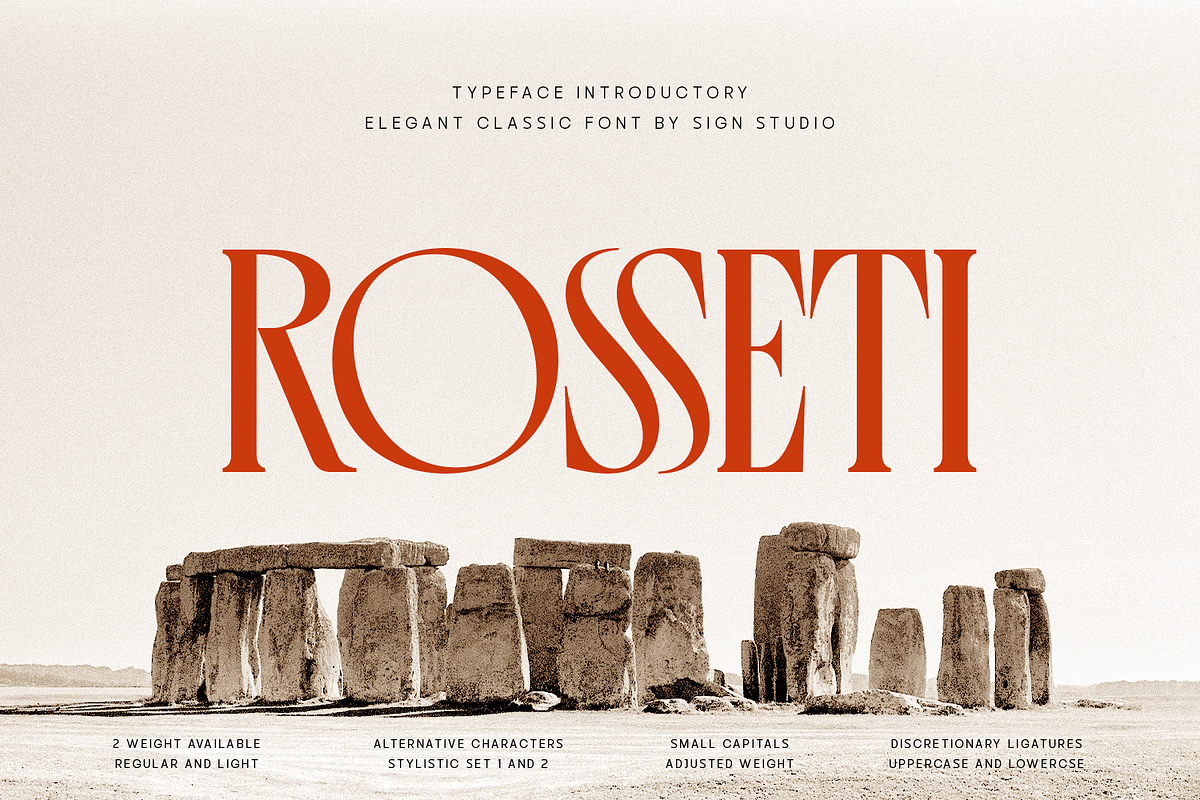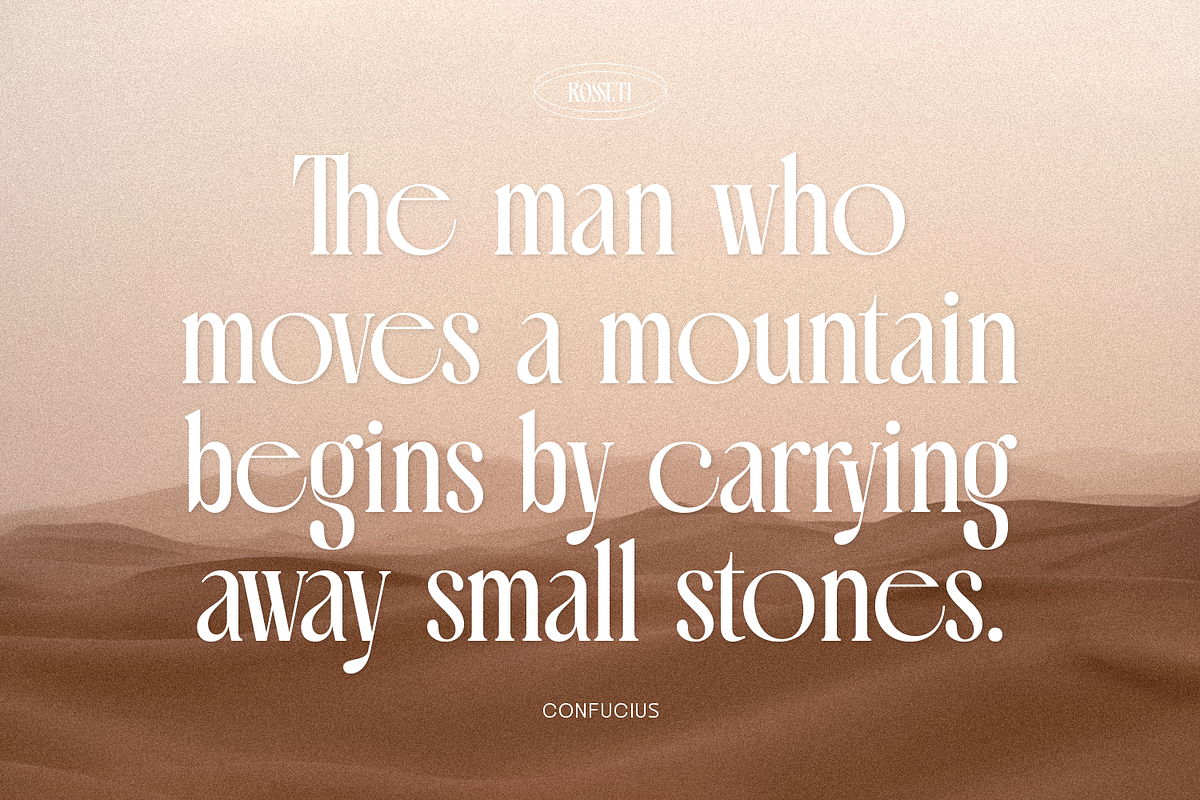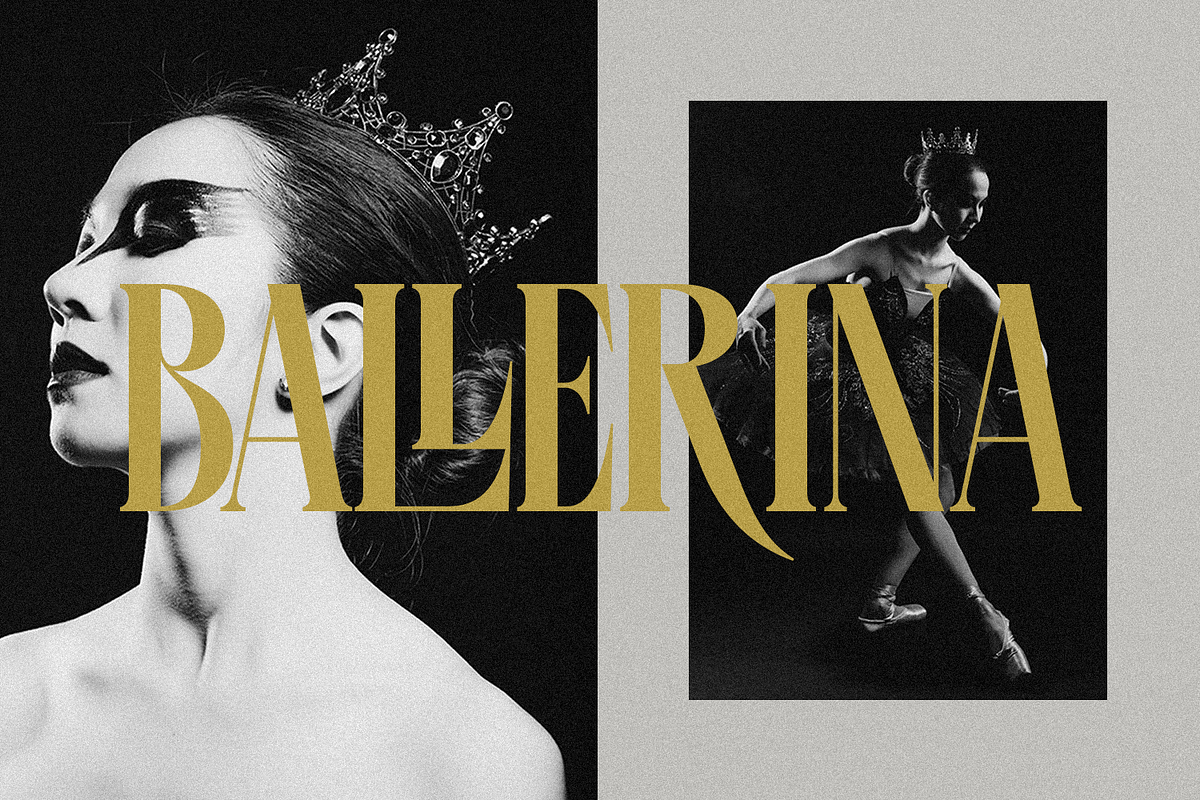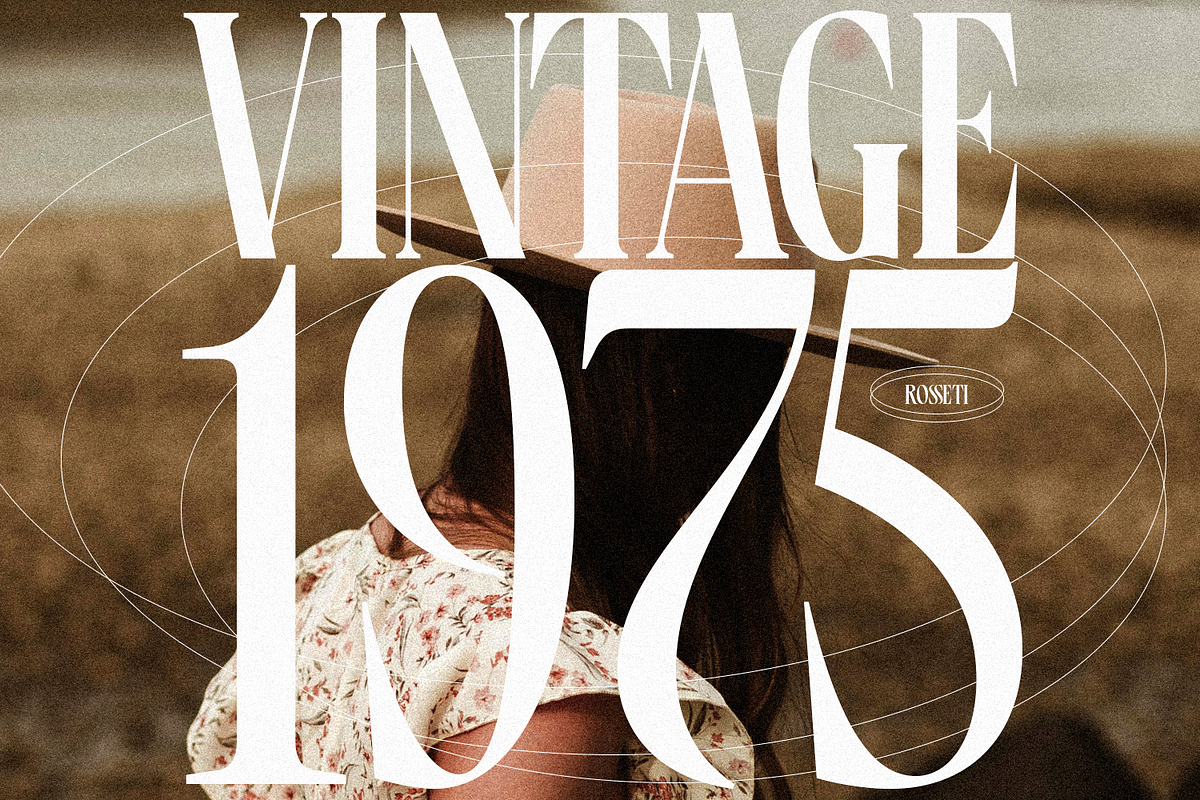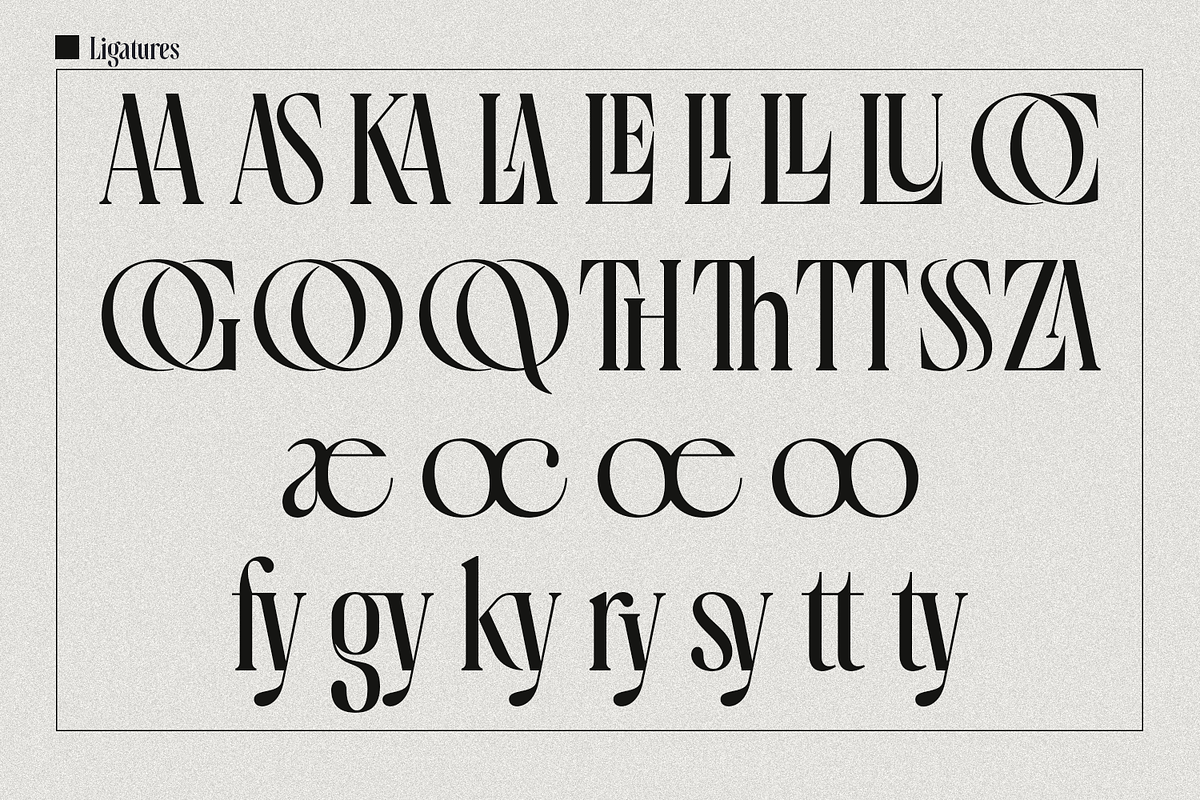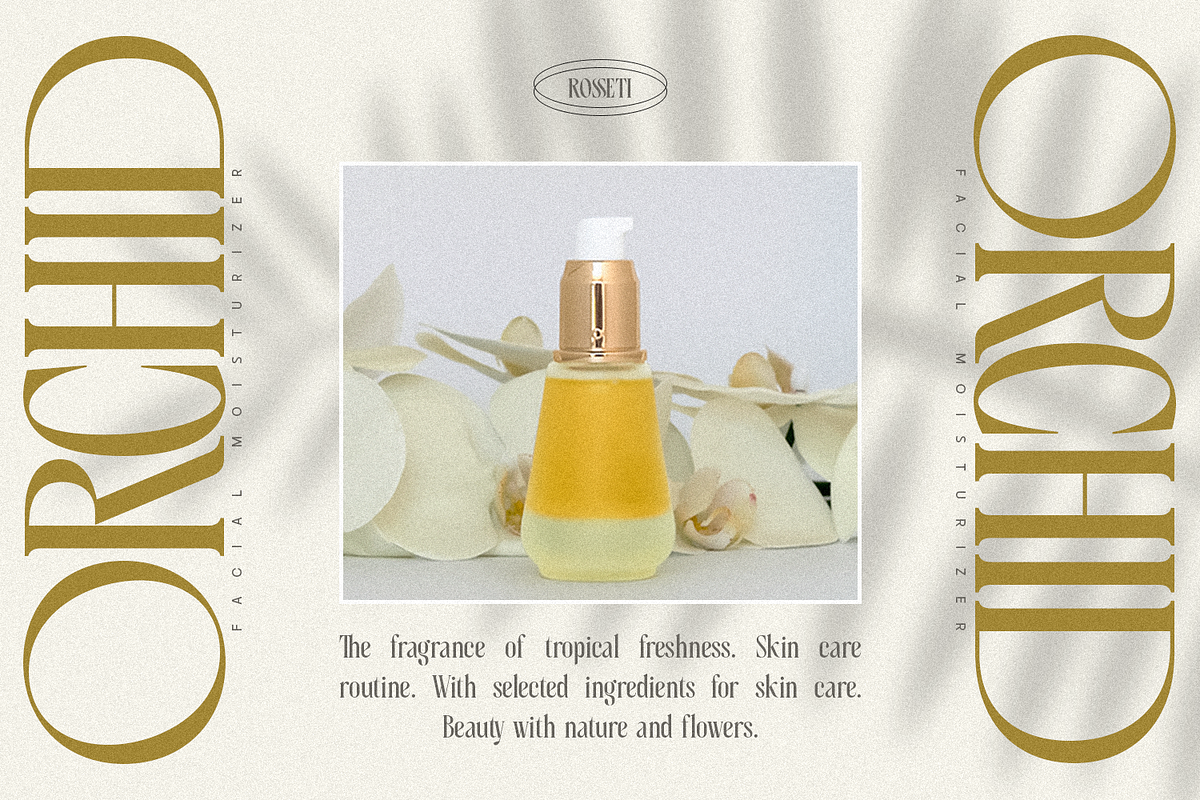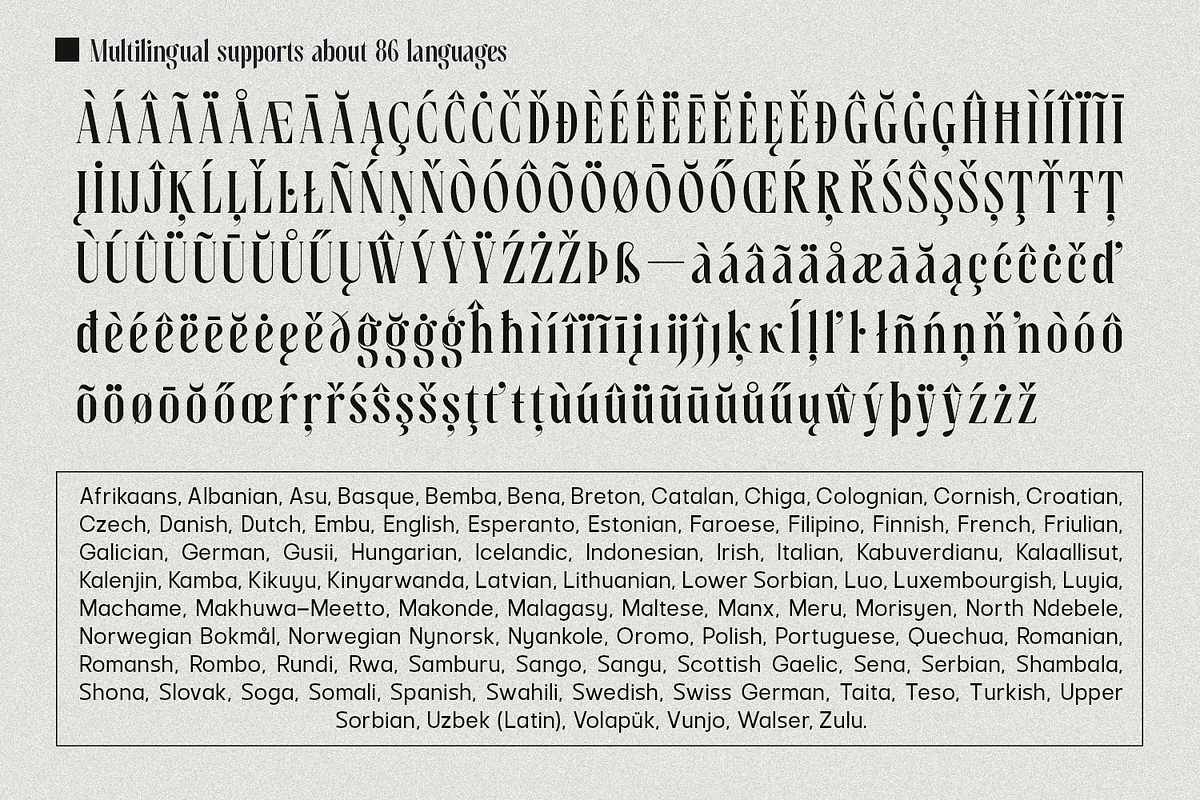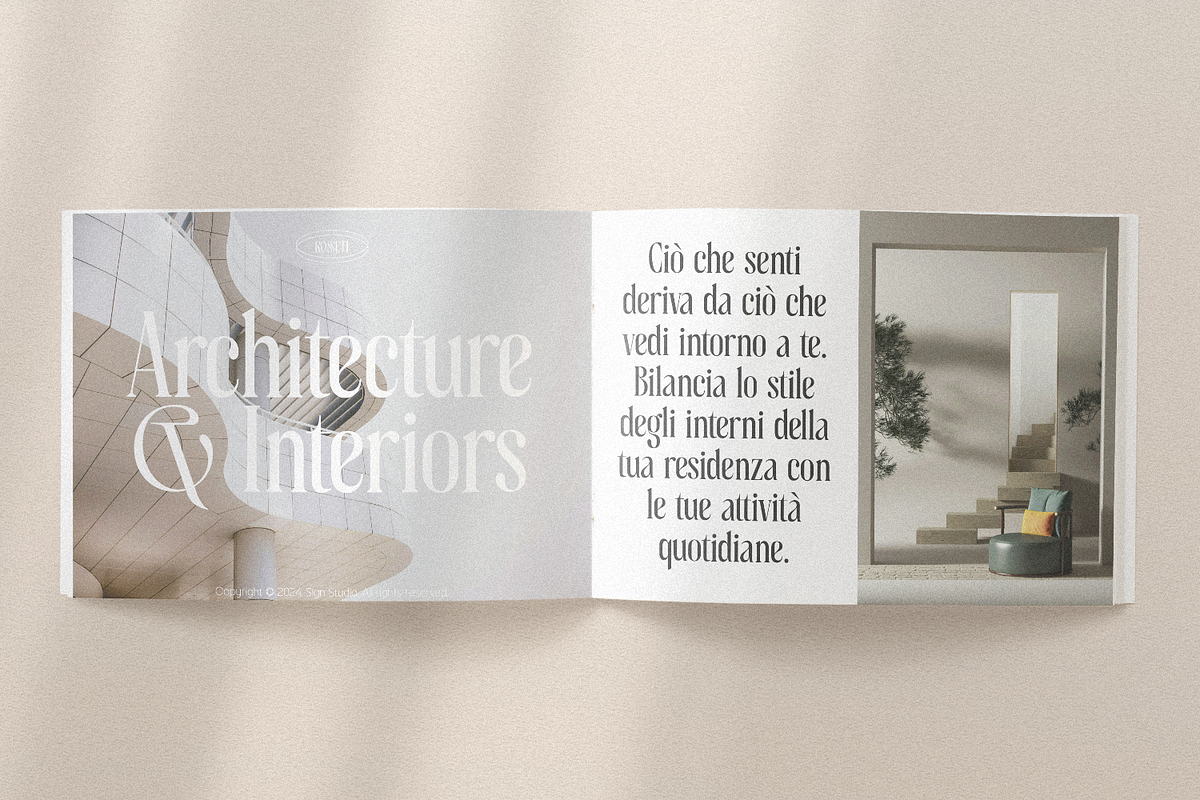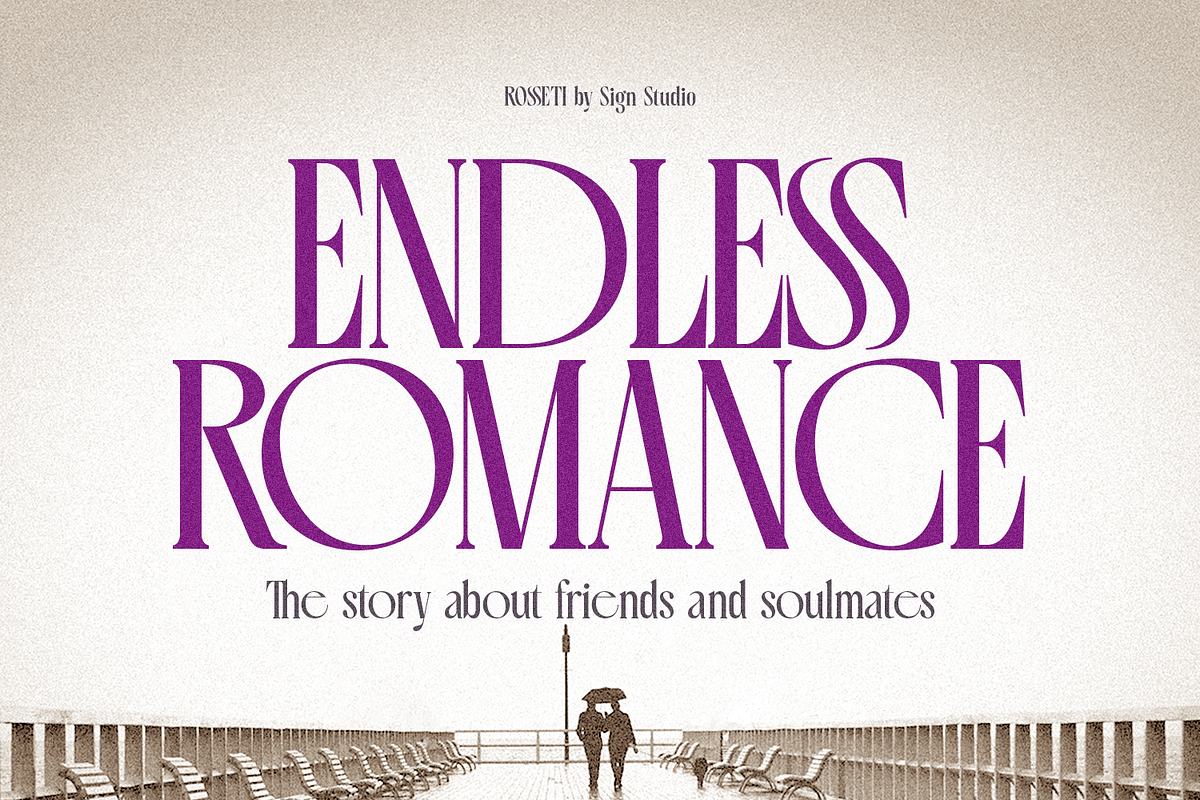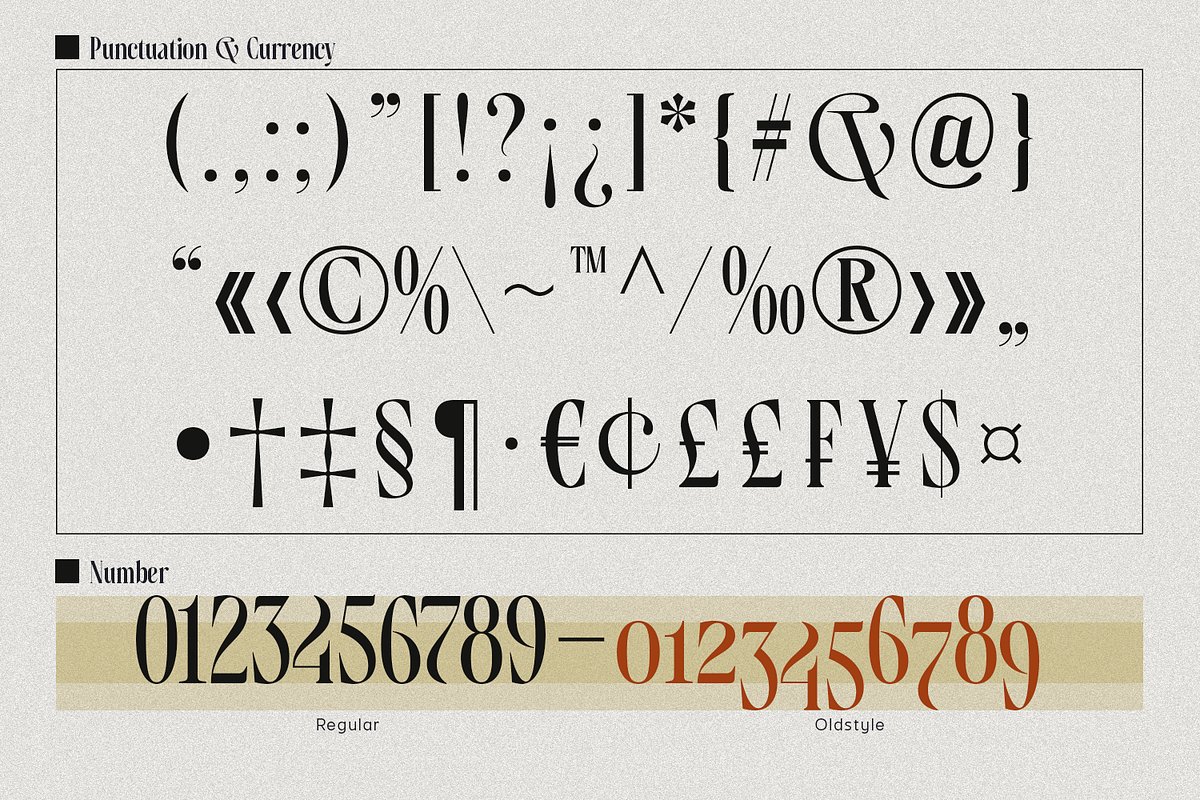
Rosseti - Elegant Retro Serif
The charming Rosseti serif font has 2 thickness options for added flexibility when used. Regular and Light styles will create typographic balance. Characters made with high contrast, discretionary ligatures and also alternative characters will become unique characteristics.
Designed to achieve a good level of harmony. Rosseti clearly possesses high, classic and elegant aesthetic values. Even though this font is intended for decoration, it still maintains readability, which of course is the main point of Sign Studio's works.
Useful OpenType features: Standard Ligature, Discretionary Ligature, Alternative Alternate Carachters, Stylistic Set 01 & 02, Oldstyle Number, SmallCaps.
Support for more than 80 languages makes it an excellent communication tool for anyone looking for a versatile but also beautiful font.
Typeface with its beautiful design and good readability, especially equipped with various OpenType features, will elevate creative projects to a higher level when creating personal or commercial projects.